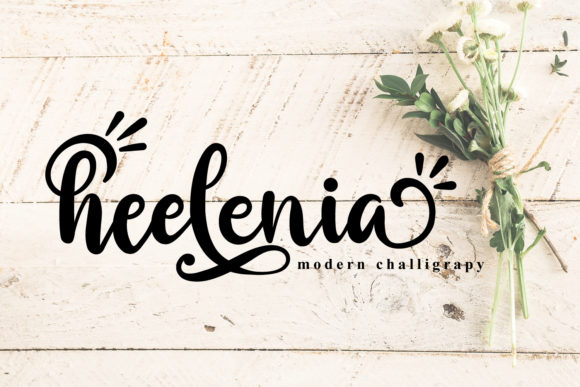
Introducing Heelenia Font: The Elegant and Charming Choice for Designers and Crafters
Are you looking for a font that exudes elegance and charm? Look no further than Heelenia Font! This beautiful handwritten font is perfect for designers and crafters who want to add a touch of sophistication to their projects. In this article, we’ll dive into the features and benefits of Heelenia Font, and explore how it can elevate your designs.
A Font that Feels Equally Charming and Elegant
Heelenia Font is a stunning script font that feels equally charming and elegant. Its smooth lines, gorgeous glyphs, and varying baseline make it perfect for a variety of design projects. Whether you’re creating wedding invitations, thank you cards, quotes, greeting cards, logos, or business cards, Heelenia Font is the perfect choice.
Heelenia Font is particularly well-suited for wedding and event designs. Its elegant and charming feel makes it perfect for wedding invitations, save-the-date cards, and other event materials. The font’s beautiful swashes and glyphs add a touch of sophistication and whimsy, making your designs truly unforgettable.
One of the best things about Heelenia Font is that it’s PUA encoded. This means that you can access all of the glyphs and swashes with ease, making it simple to customize your designs. With Heelenia Font, you can easily add flourishes and other decorative elements to make your designs truly special.
So, what sets Heelenia Font apart from other fonts? Here are just a few of its key features and benefits:
- Varying Baseline: Heelenia Font features a varying baseline, which gives it a natural, handwritten feel.
- Smooth Lines: The font’s smooth lines make it easy to read and give it a elegant feel.
- Gorgeous Glyphs: Heelenia Font includes a range of gorgeous glyphs and swashes, making it perfect for decorative designs.
- Stunning Alternates: The font also includes stunning alternates, giving you even more options for customizing your designs.
Uses for Heelenia Font
So, what can you use Heelenia Font for? The possibilities are endless! Here are just a few ideas to get you started:
- Wedding Invitations: Heelenia Font is perfect for wedding invitations, save-the-date cards, and other wedding materials.
- Thank You Cards: The font’s elegant feel makes it perfect for thank you cards and other correspondence.
- Quotes and Posters: Heelenia Font is also great for quotes and posters, adding a touch of sophistication and whimsy to your designs.
- Greeting Cards: The font’s charming feel makes it perfect for greeting cards, including birthday cards, holiday cards, and more.
- Logos and Business Cards: Heelenia Font can also be used for logos and business cards, giving your brand a elegant and professional feel.
In conclusion, Heelenia Font is a beautiful and elegant script font that’s perfect for designers and crafters. Its charming feel, smooth lines, and gorgeous glyphs make it perfect for a variety of design projects. With its PUA encoding and range of features, Heelenia Font is a versatile and practical choice for anyone looking to add a touch of sophistication to their designs. So why wait? Try Heelenia Font today and see the difference it can make!